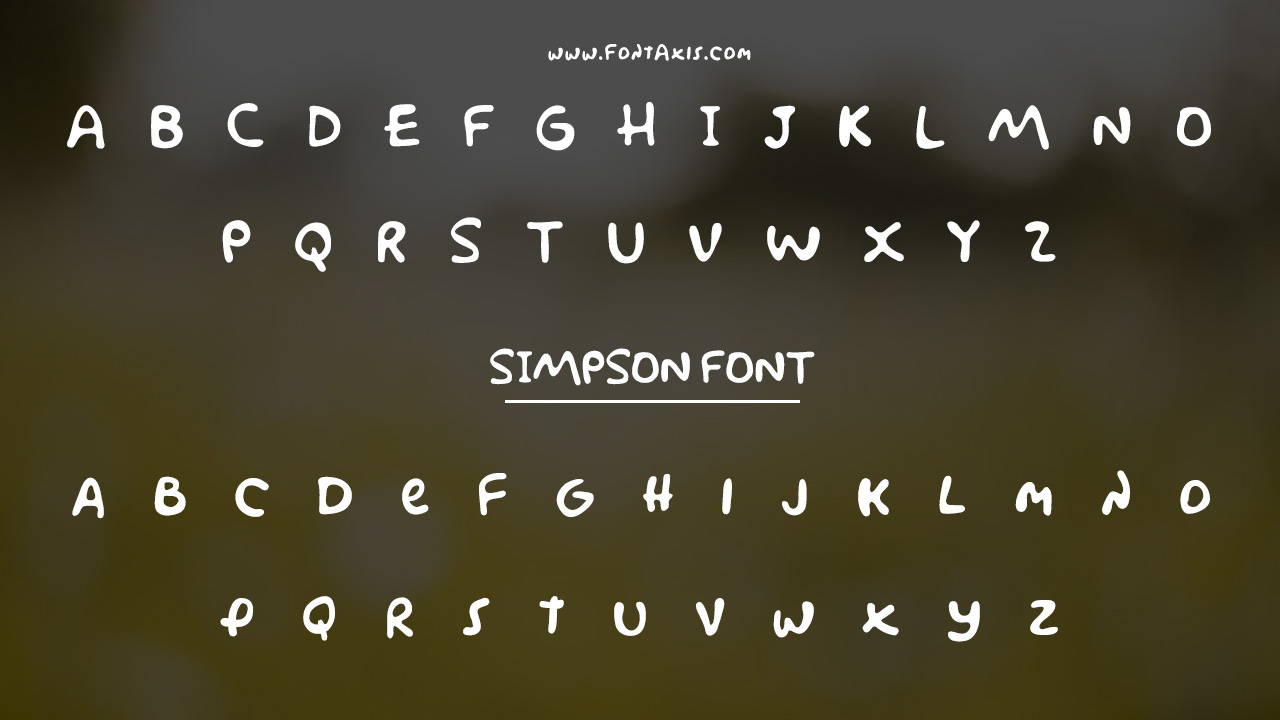
The Simpsons Font is a playful, retro typeface that mirrors the famous title lettering from the iconic Simpsons TV show, created by Matt Groening.
Originally developed by Jon Bernhardt in 1996, it was later remastered by Dennis Ludlow of Sharkshock. This unique font is used widely for memes, merchandise, and fan projects, making it one of the most popular handwritten fonts in recent years.
Where Simpson font Is In Use
- TV Show Branding: Title lettering in The Simpsons TV series
- Merchandise: Apparel, posters, and printed materials
- Social Media Memes: Often used in fan-created memes
- Fan Projects: Perfect for fan art, websites, and other Simpsons-related content
- Logos: Used for projects that need a bold, playful look, similar to the Simpsons logo
- Graphic Design: Common in comic-style designs, especially in retro or cartoonish themes
- Text Generators: Frequently used in online text generators for meme creation
- Simpsonfont + Open Sans: A clean sans-serif font to balance the playful nature of Simpsonfont.
- Simpsonfont + Merriweather: Combines the bold, whimsical look of Simpsonfont with a classic serif style for a balanced design.
- Simpsonfont + Montserrat: For a modern touch, pairing Simpsonfont with Montserrat creates a nice contrast of playful and contemporary.
Simpsonfont is a fun and nostalgic typeface that brings the iconic style of The Simpsons to your designs. Whether you’re creating memes, fan art, merchandise, or just adding a playful touch to your project, this font is a perfect choice.
With its distinct handwritten style and easy accessibility, Simpsonfont continues to be a favorite for both personal and commercial use, adding character and charm to any design.
1.What Characters Are Included In Simpsonfont?
Simpsonfont includes capital letters, basic Latin, European accents, Cyrillic characters, and some punctuation. It supports basic extended Latin and special symbols like the asterisk (*) for the small “the.”
4.What Is The “Simpsons” Font Best Suited For?
It’s ideal for retro, cartoon, and meme-style projects, including logos, title lettering, and printed materials like posters and merchandise.